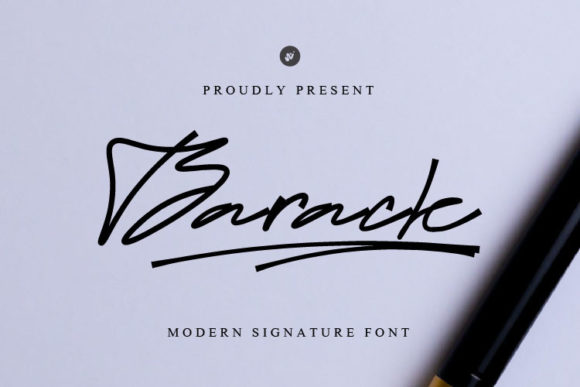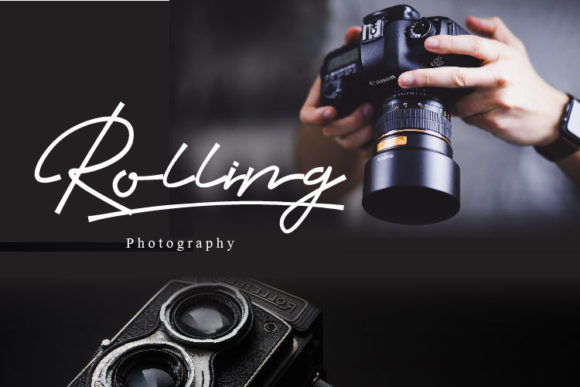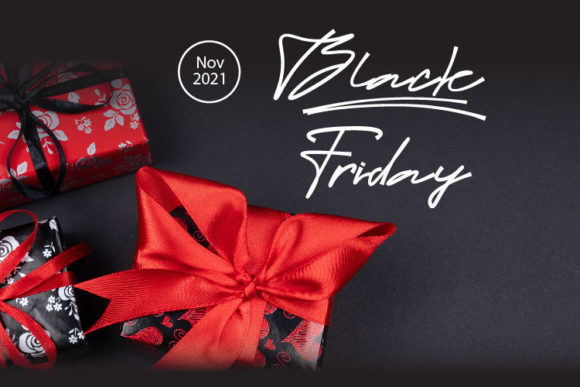
About Barack Script Font
Barack is a modern signature script font that has strong and stylish characters with some ligatures t make it unique and beautifully flowing. Let your imagination wild and use this font to create amazing designs!